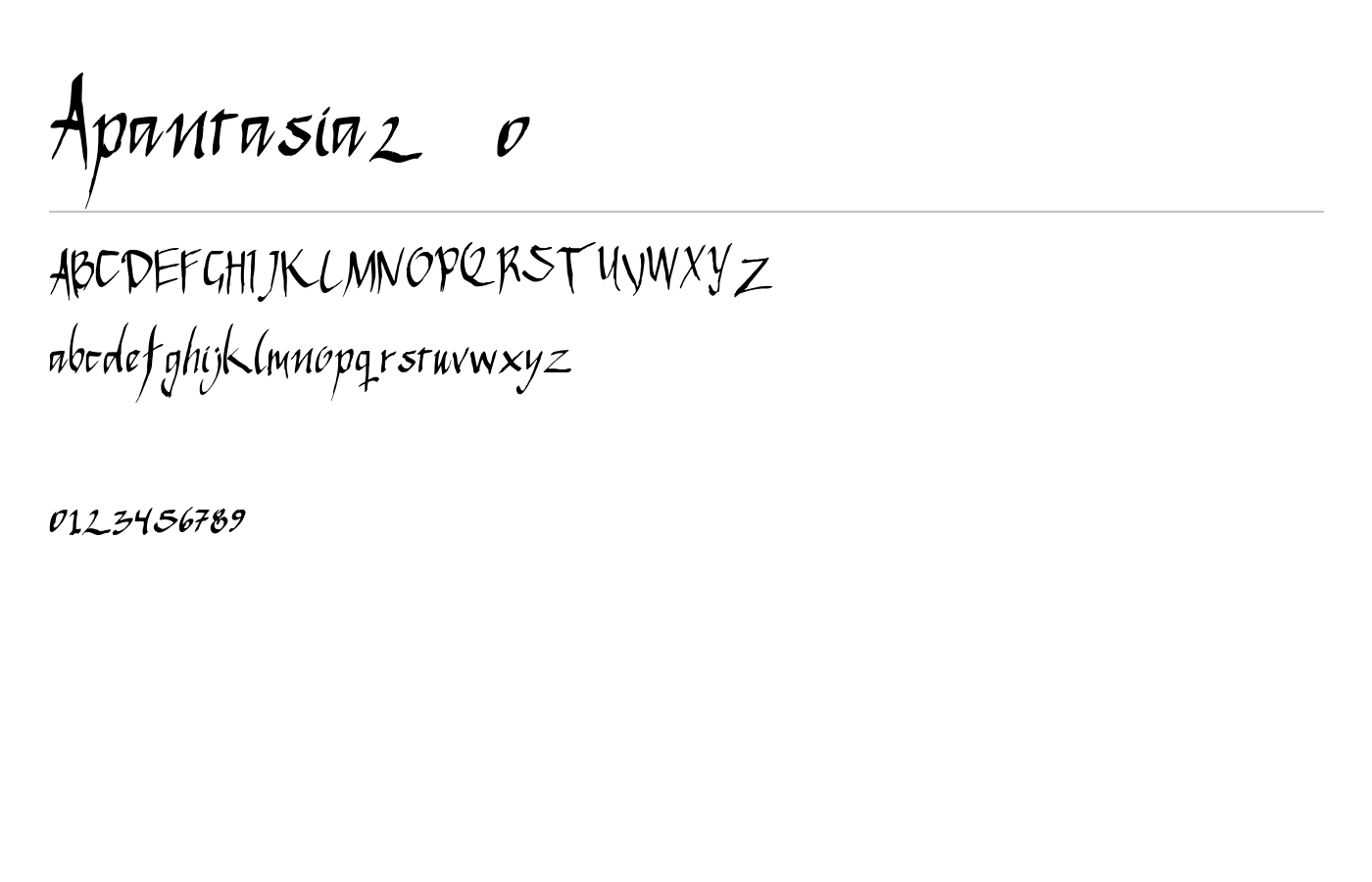
Apantasia2.0 is a distinctive handwritten script font with a sharp, angular style that evokes a mysterious and edgy feel. Its narrow, irregular strokes and unique letterforms make it well-suited for artistic, expressive branding or creative projects that require a dramatic, unconventional look. This font works best in headlines, logos, or posters where its bold personality can truly stand out.
Apantasia2.0 Font